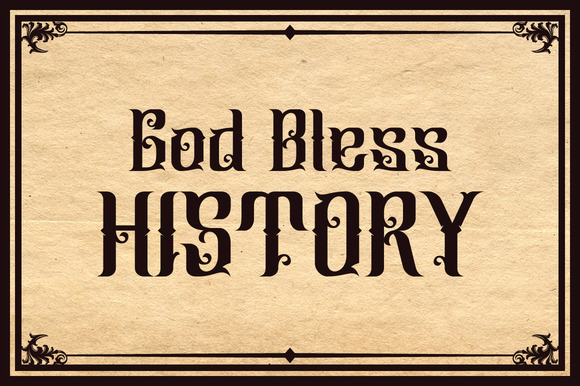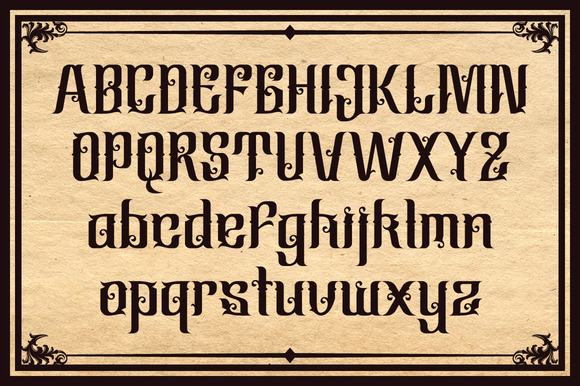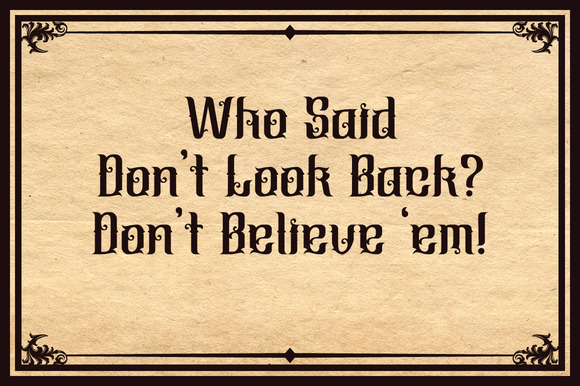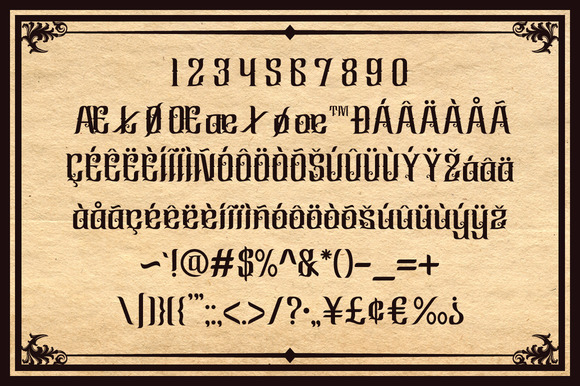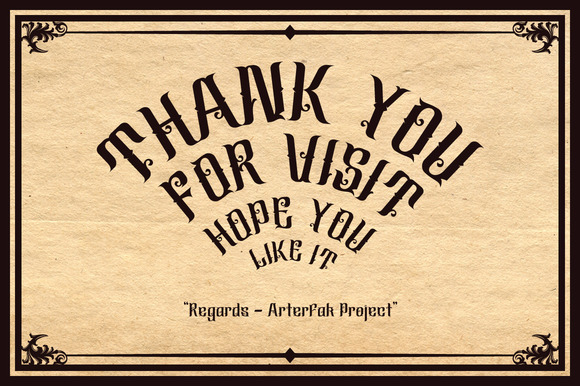
Cindo Kato Font: Elevate Your Designs with Elegance and Tradition
Are you a designer or crafter looking for a unique and elegant typeface to elevate your artwork? Look no further than the Cindo Kato Font, a traditional typeface inspired by floral culture. With its beautiful and intricate design, Cindo Kato is perfect for a variety of creative projects, from posters and flyers to logos, book covers, labels, and more.
The Inspiration Behind Cindo Kato
Cindo Kato is a typeface that draws inspiration from the delicate and intricate patterns found in floral culture. The font’s design is characterized by its elegant lines, curves, and flourishes, which evoke a sense of sophistication and refinement. Whether you’re creating a traditional piece of artwork or a modern design, Cindo Kato is sure to add a touch of elegance and class.
Features of Cindo Kato Font
Cindo Kato Font is a versatile typeface that features a range of characteristics that make it perfect for a variety of design projects. Some of its key features include:
- Elegant and traditional design inspired by floral culture
- Intricate lines, curves, and flourishes
- Perfect for posters, flyers, logos, book covers, labels, and more
- Suitable for both digital and print designs
- Easy to read and visually appealing
Uses of Cindo Kato Font
Cindo Kato Font is a versatile typeface that can be used in a wide range of design projects. Here are some ideas to get you started:
- Posters and Flyers: Create eye-catching posters and flyers for events, promotions, or advertising campaigns.
- Logos and Branding: Use Cindo Kato to create elegant and sophisticated logos for your business or brand.
- Book Covers: Add a touch of elegance to your book covers with Cindo Kato’s beautiful and intricate design.
- Labels and Packaging: Use Cindo Kato to create labels and packaging that stand out on store shelves.
- Traditional Artwork: Create traditional pieces of artwork, such as watercolor paintings or illustrations, with Cindo Kato as the perfect complement.
Why Choose Cindo Kato Font?
There are many typefaces to choose from, but Cindo Kato stands out for its unique and elegant design. Here are some reasons why you should choose Cindo Kato for your next design project:
- Unique and distinctive: Cindo Kato’s intricate design sets it apart from other typefaces.
- Elegant and sophisticated: Add a touch of elegance and refinement to your designs with Cindo Kato.
- Versatile: Use Cindo Kato in a wide range of design projects, from posters and flyers to logos and book covers.
- Easy to read: Despite its intricate design, Cindo Kato is easy to read and visually appealing.
In conclusion, Cindo Kato Font is an elegant and traditional typeface that is perfect for designers and crafters looking to add a touch of sophistication and refinement to their artwork. With its intricate design inspired by floral culture, Cindo Kato is versatile and can be used in a wide range of design projects. Whether you’re creating posters, flyers, logos, book covers, or traditional artwork, Cindo Kato is sure to elevate your designs and make them stand out.